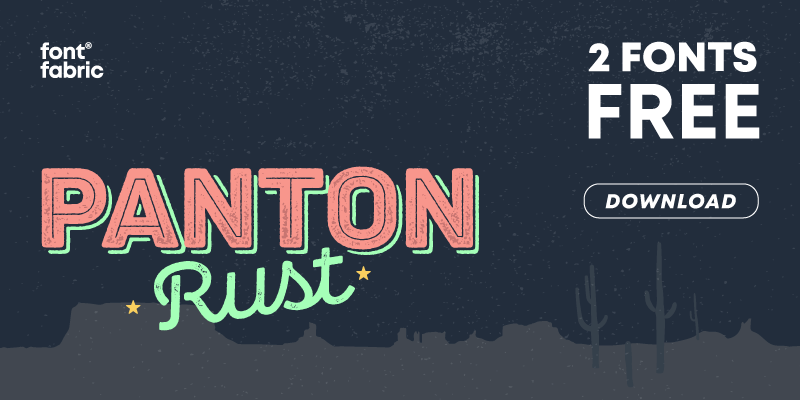
Free download Panton Rust Scr Font
Preview and download Panton Rust Scr Font. Created by Fontfabric in Script Old School styles with Free for personal use license.
The Rust Bundle includes Extended Latin and Cyrillic coverage, providing support for more than 130 languages. Fontfabric type designers handcrafted the package to bring an authentic and original vintage type, making it especially suitable for any design that speaks of craftsmanship, a sublime human touch, and a mature signature with undeniable flavor. |